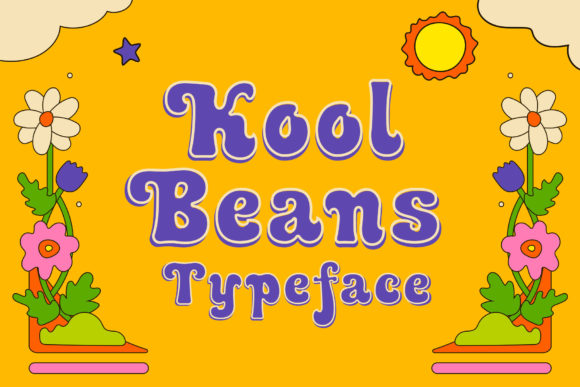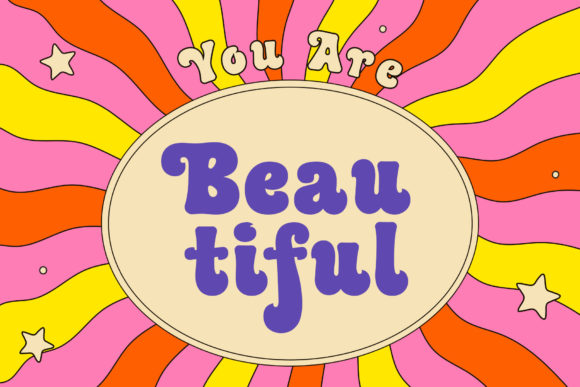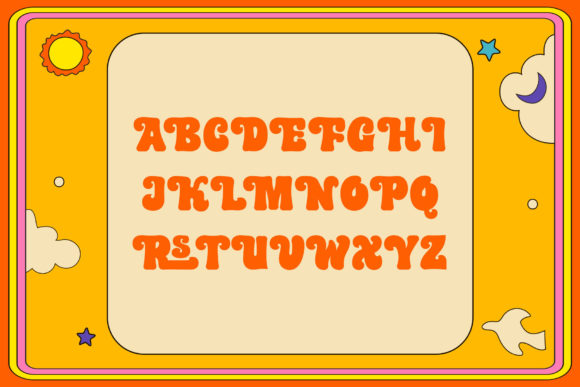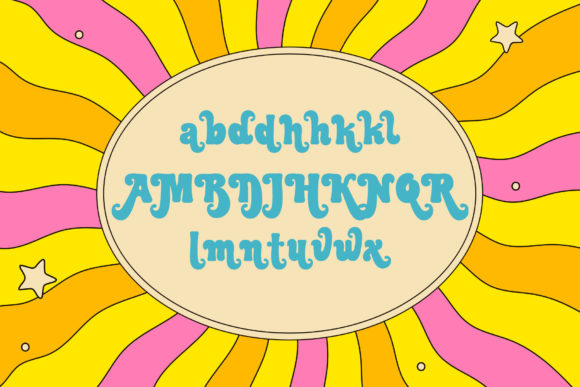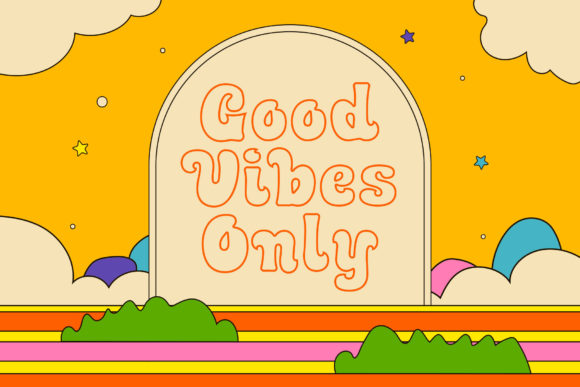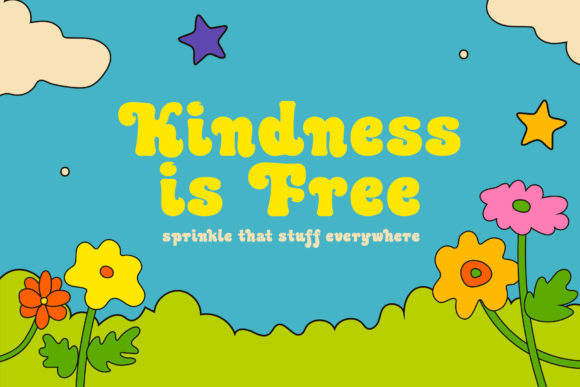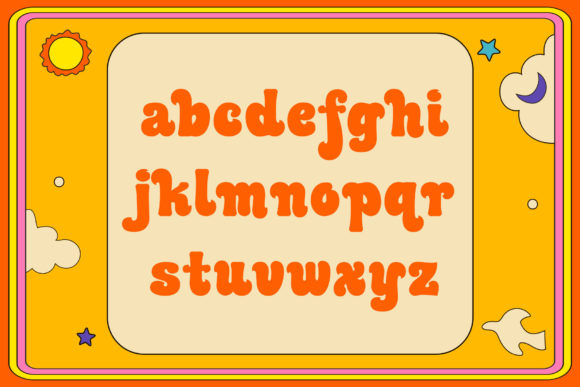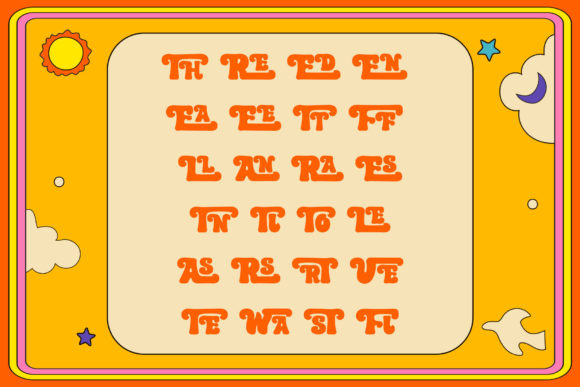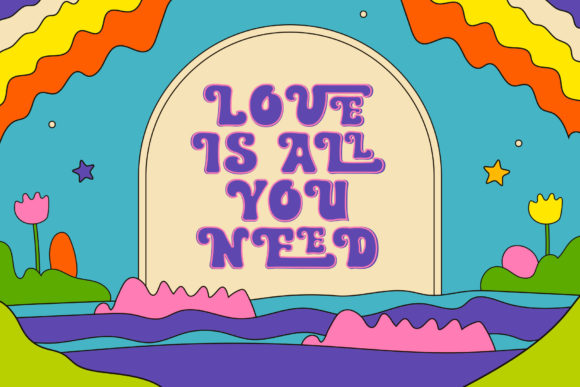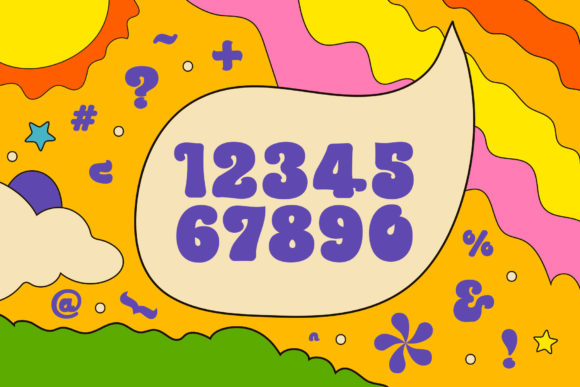
Kool Beans
Kool Beans: A Groovy 1960-70s Inspired Slab Serif Font
Kool Beans is a distinctive slab serif font that embraces the groovy psychedelia era of the 1960s and 70s. This versatile typeface is designed to bring an authentic retro feel to a wide range of creative projects.
Key Features of Kool Beans
• Retro Design: Captures the essence of 1960-70s psychedelic aesthetics.
• Slab Serif Structure: Features the characteristic thick, rectangular serifs typical of slab serif fonts.
• 3D Effect: Offers a three-dimensional feeling to make designs come to life.
• PUA Encoded: Allows easy access to all glyphs and swashes for enhanced design flexibility.
• Versatile Application: Suitable for a wide range of projects requiring an authentic retro vibe.
Ideal Uses for Kool Beans
Kool Beans’ unique characteristics make it particularly well-suited for:
When incorporating Kool Beans into your designs, consider the following tips:
• Utilize the 3D effect to create eye-catching headlines and titles
• Experiment with psychedelic color palettes to enhance the retro feel
• Take advantage of the PUA encoding to access all glyphs and swashes for creative typography
Kool Beans is an excellent choice for designers looking to add a groovy, retro-inspired slab serif font to their typographic toolkit. Its ability to evoke the psychedelic era of the 1960s and 70s makes it stand out in the world of typography. Whether you’re working on logo designs for a vintage-themed brand, creating layouts for retro-inspired magazines, or developing content that requires an authentic throwback feel, Kool Beans offers the perfect blend of nostalgia and creativity.
Add Kool Beans to your creative projects and explore how it can transport your designs back to the groovy era. From eye-catching magazine covers to engaging social media posts, this font provides the tools to create impactful and memorable typography that resonates with audiences seeking a taste of retro cool. It’s versatile enough to be used in various contexts, from vintage-inspired designs to playful layouts that need a touch of psychedelic flair.
Whether you’re creating a magical and mysterious atmosphere with a retro twist or aiming for a more thoughtful and introspective mood in your designs, Kool Beans can adapt to your needs. Its flexibility allows it to work well in both rustic, vintage-style projects and holiday-themed designs that require a groovy update. For those looking to add a touch of nostalgia with a psychedelic feel, this font can even complement vintage Christmas-inspired creations with a unique, far-out twist.